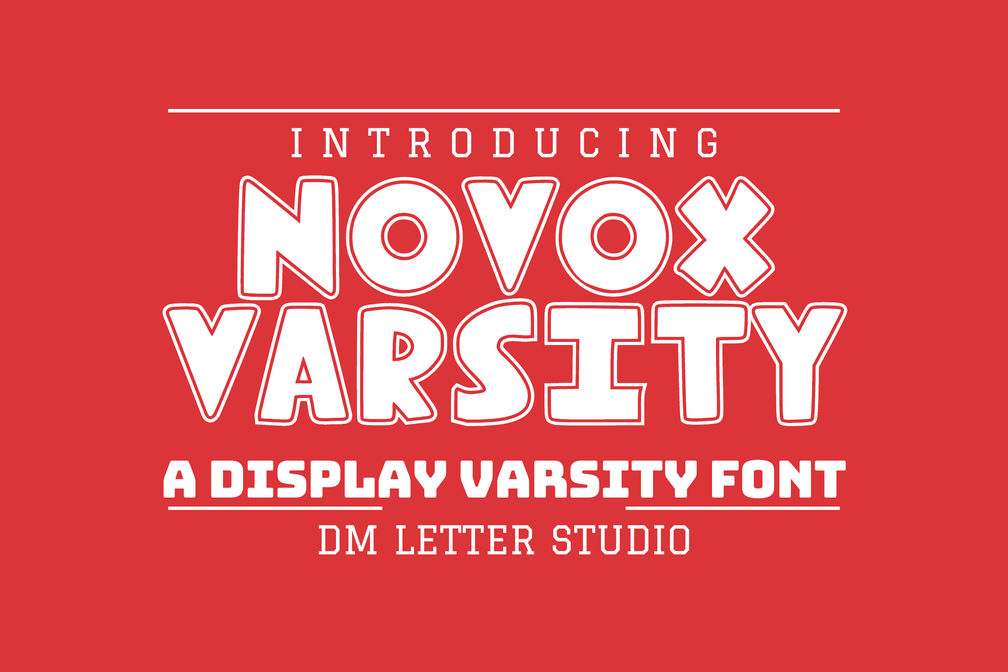
Novox Varsity
Novox Varsity – Bold & Athletic College Font
Novox Varsity is a striking display typeface inspired by classic collegiate lettering. With its bold block shapes, clean edges, and vintage varsity flair, this font brings the spirit of sports, school pride, and retro charm to your designs. Whether you’re crafting team merchandise, yearbook covers, motivational posters, or nostalgic apparel, Novox Varsity delivers the confident impact of traditional athletic aesthetics.
• Classic Collegiate Style: Strong, uniform characters inspired by traditional varsity jackets and sports lettering.
• Perfect for School & Sports Themes: Ideal for logos, team branding, event banners, and back-to-school campaigns.
• Vintage Yet Modern Feel: Captures the old-school athletic vibe while staying clean and contemporary.
• Full Character Set: Includes uppercase, lowercase, numbers, punctuation, and multilingual support.
• Optimized for Print & Digital: Designed for high readability on jerseys, posters, web graphics, and more.